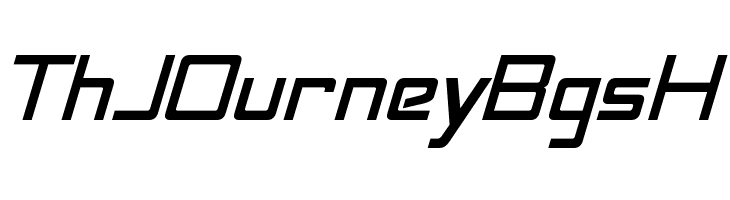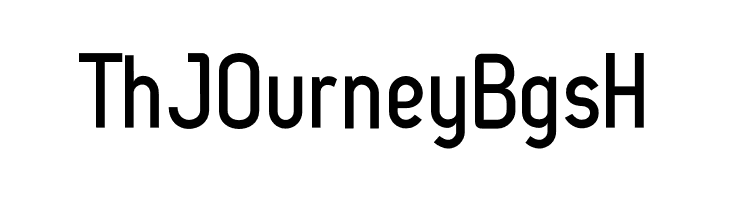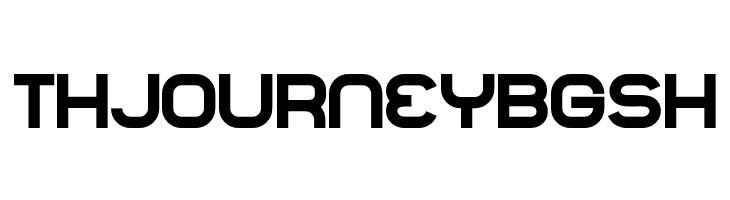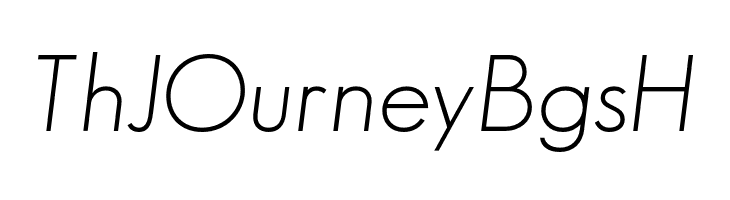
( Fonts by Neale Davidson - www.pixelsagas.com )
A sleek, modern oblique font with a dynamic and professional appearance.
( Fonts by www.Fontfabric.com )
A modern, geometric sans-serif font with a clean and professional look.
( Fonts by billyargel.blogspot.com - Billy Argel )
A bold, modern geometric font with a sleek and professional appearance.
( Fonts by Casady & Greene )
A modern, italic sans-serif font with clean lines and a sleek appearance.
( Fonts by Rich Gast - www.greywolfwebworks.com OFF SITE )
A bold, outlined font with angular, slanted characters for a dynamic look.
( Fonts by Rich Gast - www.greywolfwebworks.com OFF SITE )
A bold, decorative font with a patriotic stars and stripes theme.
( Fonts by Rich Gast - www.greywolfwebworks.com OFF SITE )
A bold, decorative font with a patriotic stars and stripes theme.